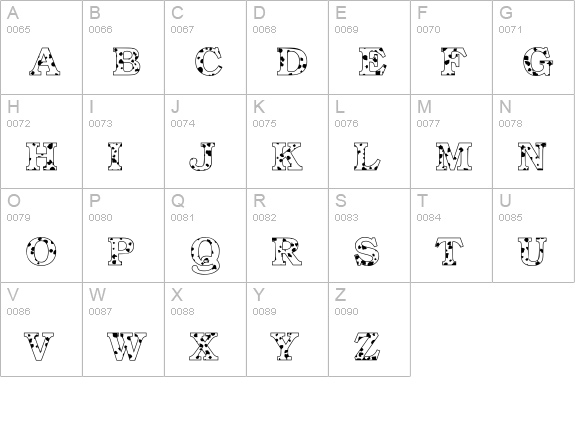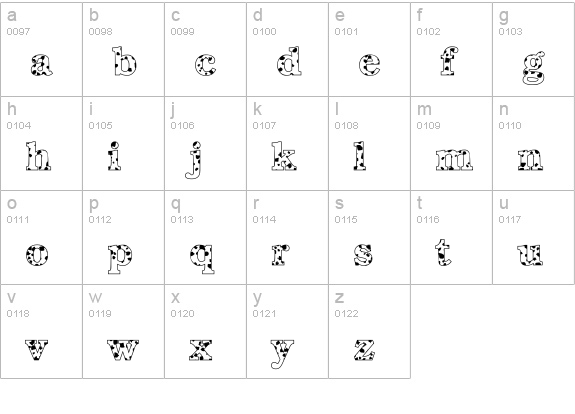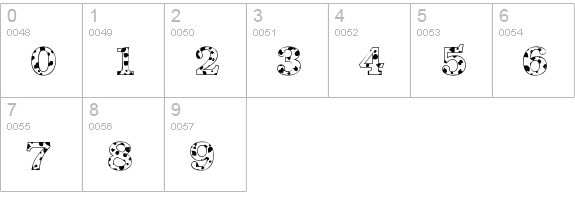
Dalmatian Font Details
Dalmatian font is a captivating typeface that embodies the elegance and charm of its namesake breed. With its distinct spots and playful curves, this font exudes a sense of energy and uniqueness that is sure to make your designs stand out. Designed with meticulous attention to detail, Dalmatian font features perfectly balanced letterforms that effortlessly flow from one character to the next, creating a harmonious and visually pleasing aesthetic. Its bold, yet refined strokes make it versatile for a wide range of design projects, whether it's branding, packaging, headlines, or even social media graphics. But what truly sets Dalmatian font apart is that it is not only visually striking, but it is also free. That's right, you can download this stunning font for absolutely no cost at FontsMarket.com. Whether you're a professional designer or just starting out, Dalmatian font gives you the opportunity to add a touch of sophistication to your work without breaking the bank. So why wait? Get your paws on Dalmatian font today and let its distinctive style and versatility bring your designs to life. Whether you're looking to create a bold statement or add a touch of playfulness, this font is sure to become your new go-to choice. Download it for free at FontsMarket.com and let your creativity run wild.